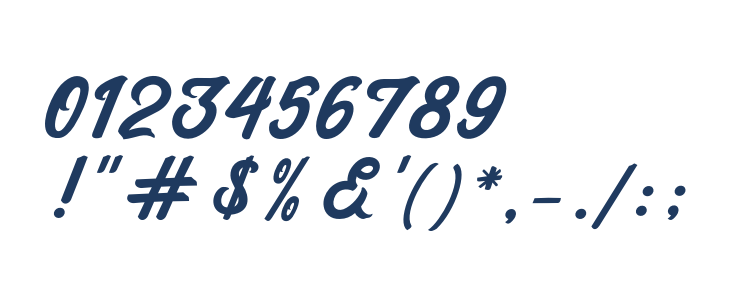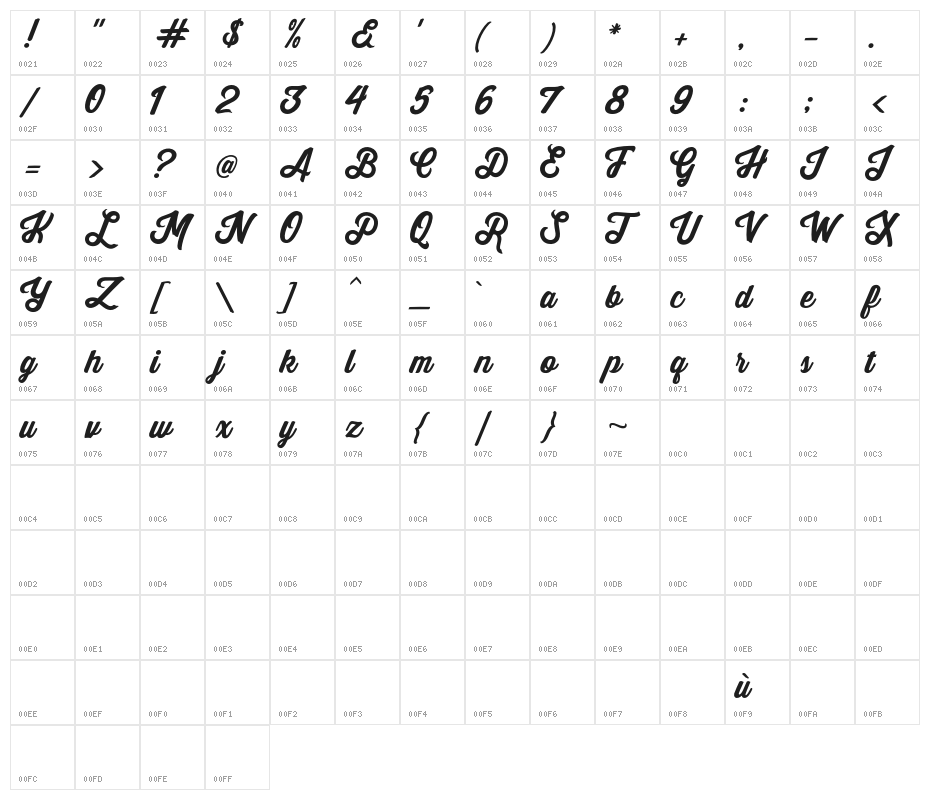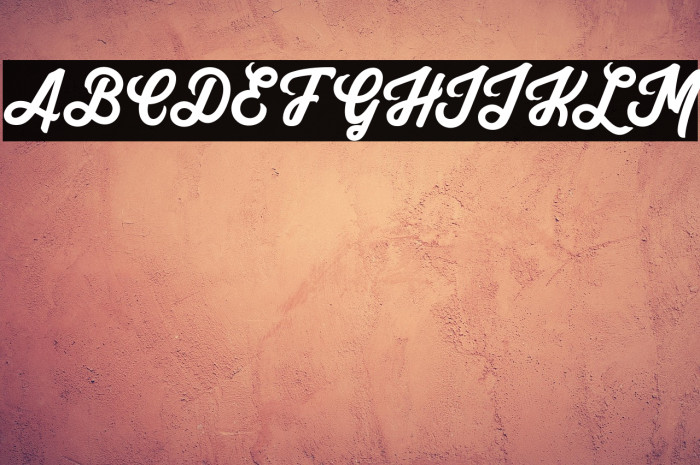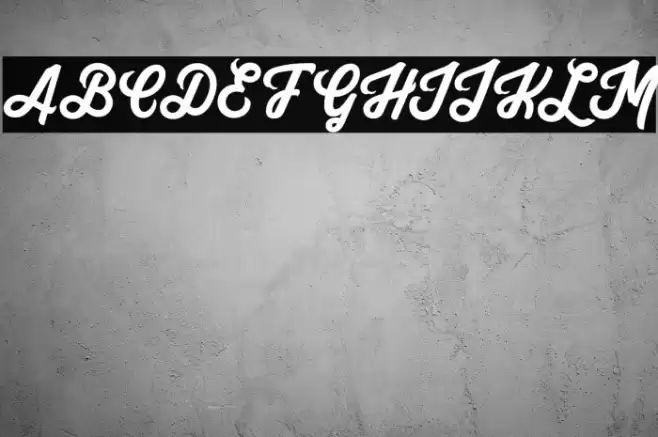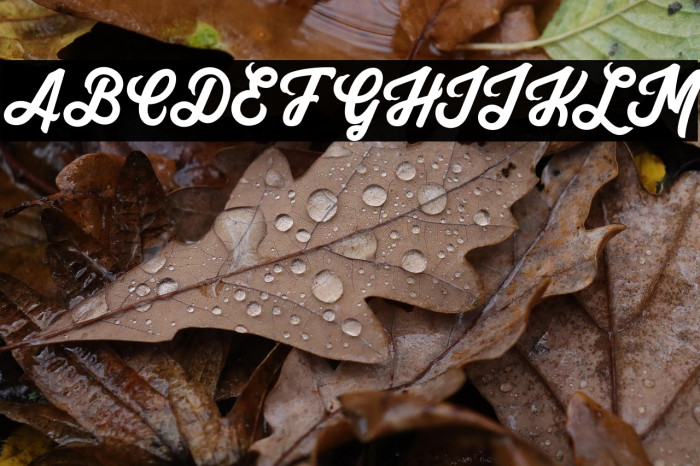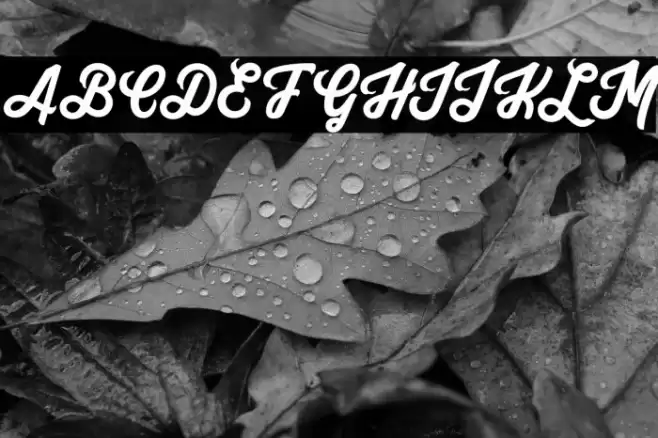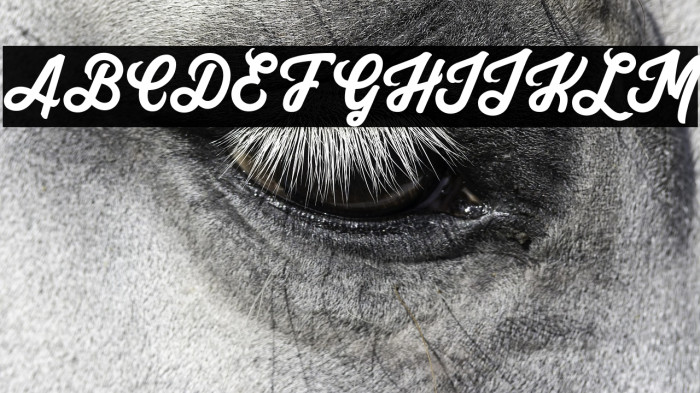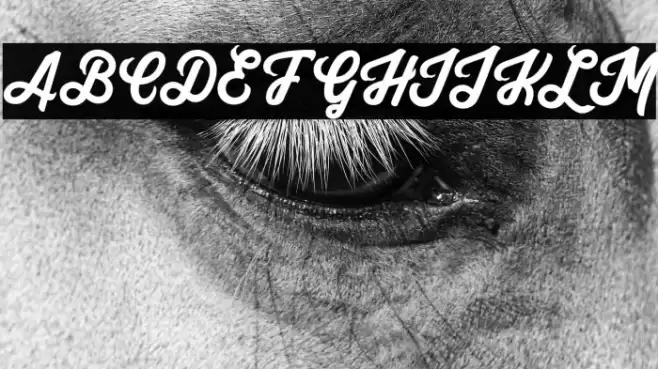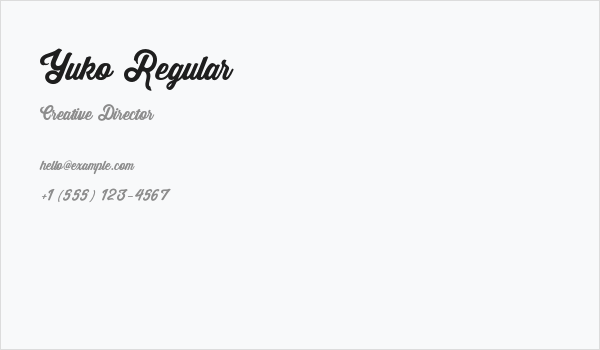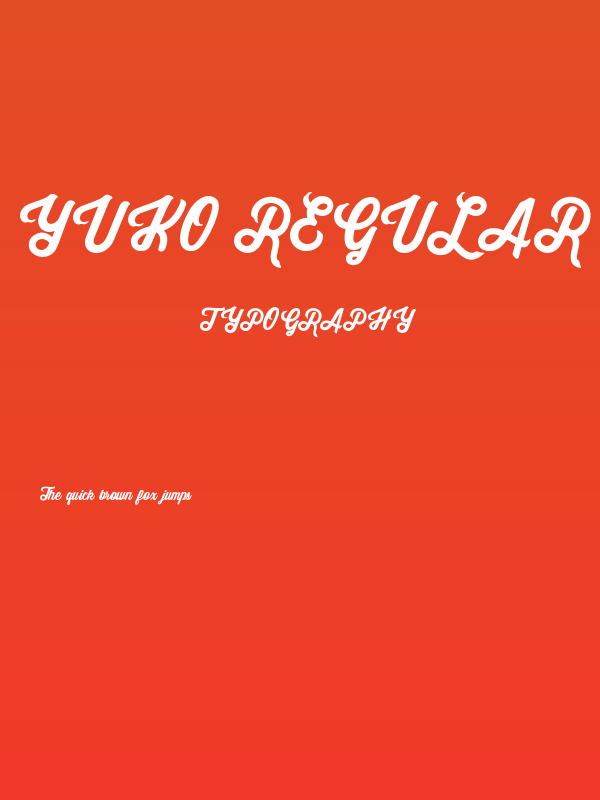
Yuko Regular Font
Yuko Regular Description
This font features a bold and flowing script style, characterized by its smooth, cursive letterforms that convey a sense of elegance and fluidity. The uppercase letters are slightly more ornate, with subtle flourishes that add a touch of sophistication. The lowercase letters maintain a consistent flow, enhancing readability while preserving the decorative nature of the script. The numerals and special characters are designed to match the overall aesthetic, ensuring a cohesive look across all text elements. This font is ideal for projects that require a personal, handwritten touch, such as invitations, greeting cards, and branding materials.
| Use Case | Headlines, Logos, Decorative text |
| Proposed Projects | Ideal for invitations, greeting cards, branding, and decorative projects. |